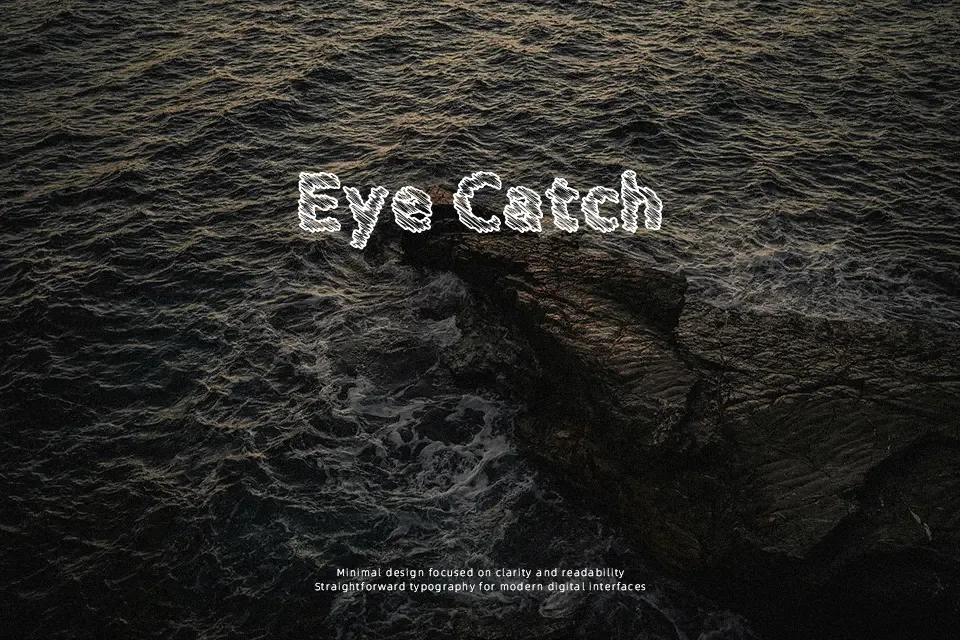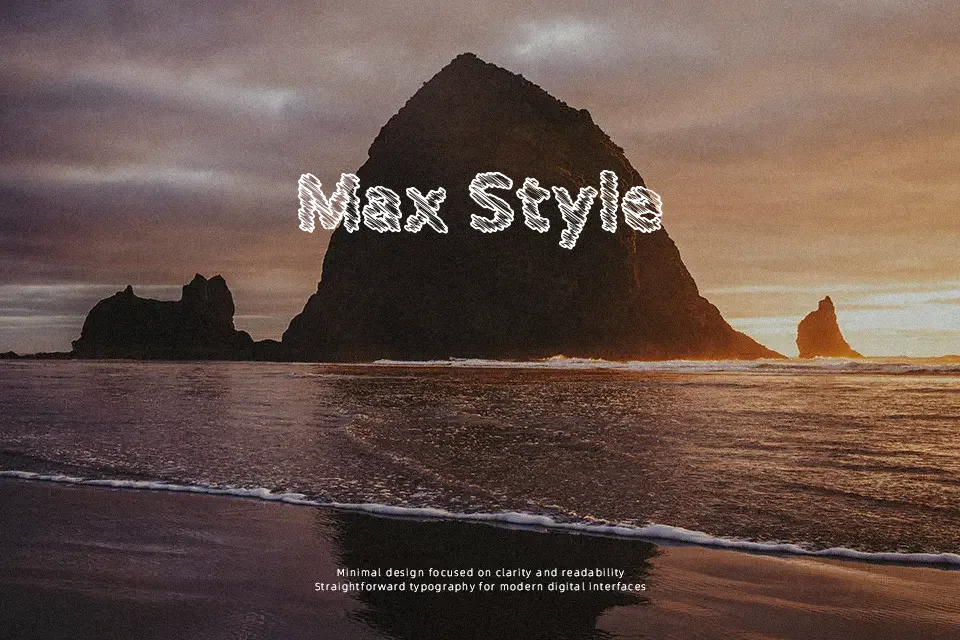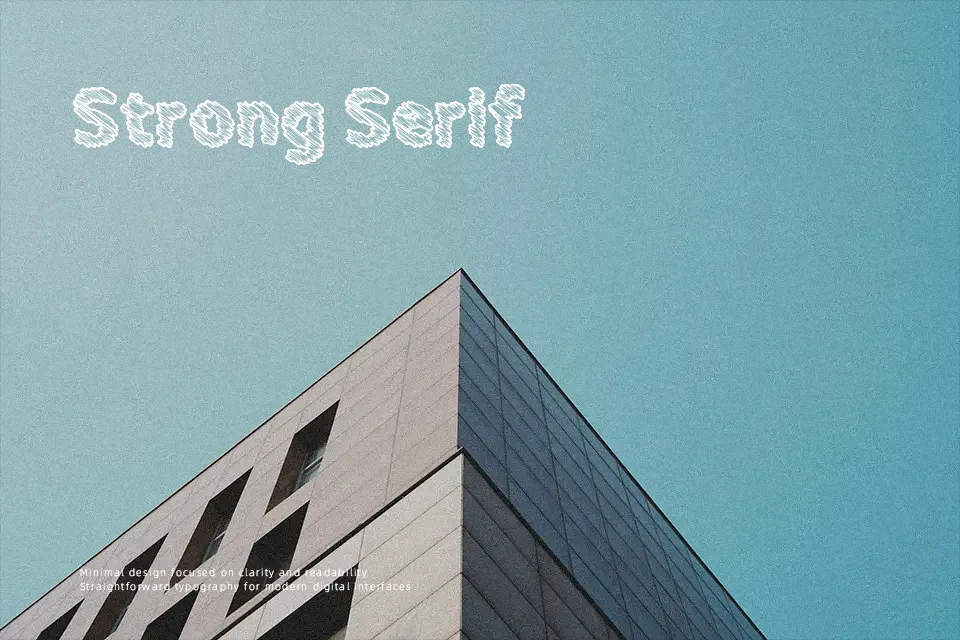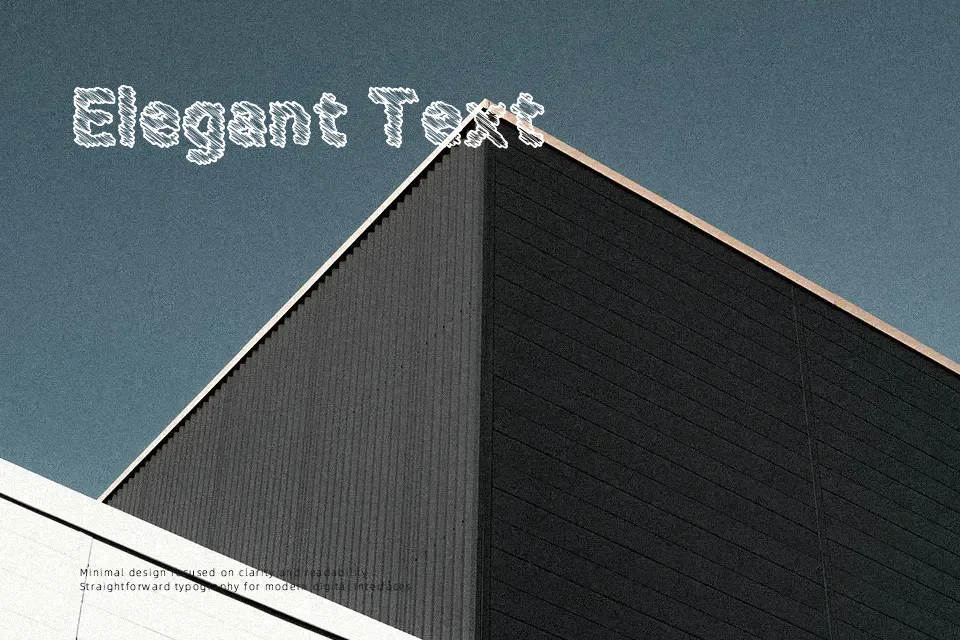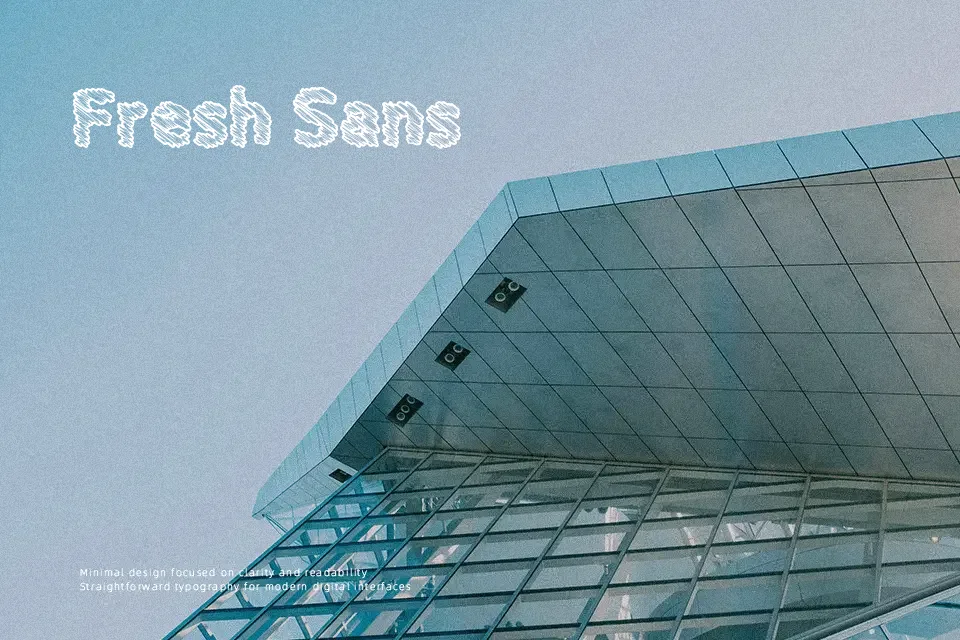
Trap Music Font
Evaluating Trap Music Font across practical layouts confirms that its expressive silhouette functions best when given substantial physical space. The typeface features heavy, irregular strokes with sharp angles and deliberate asymmetry across uppercase forms. Compact letter spacing reinforces the dense, blocky visual rhythm, giving titles an intense graphic presence. While these proportions maximize legibility at large display scales, smaller settings cause internal counters to close up rapidly. Consequently, the design excels on merchandise prints, bold event flyers, and digital track artwork, but the letterforms become completely unreadable in running body copy or detailed caption blocks.
Best For: music festival posters, streetwear apparel graphics, digital album cover art
Not Ideal For: long paragraph text, small interface labels, mobile application body copy
Perfect for headline, logo, and music, with a bold and decorative style.